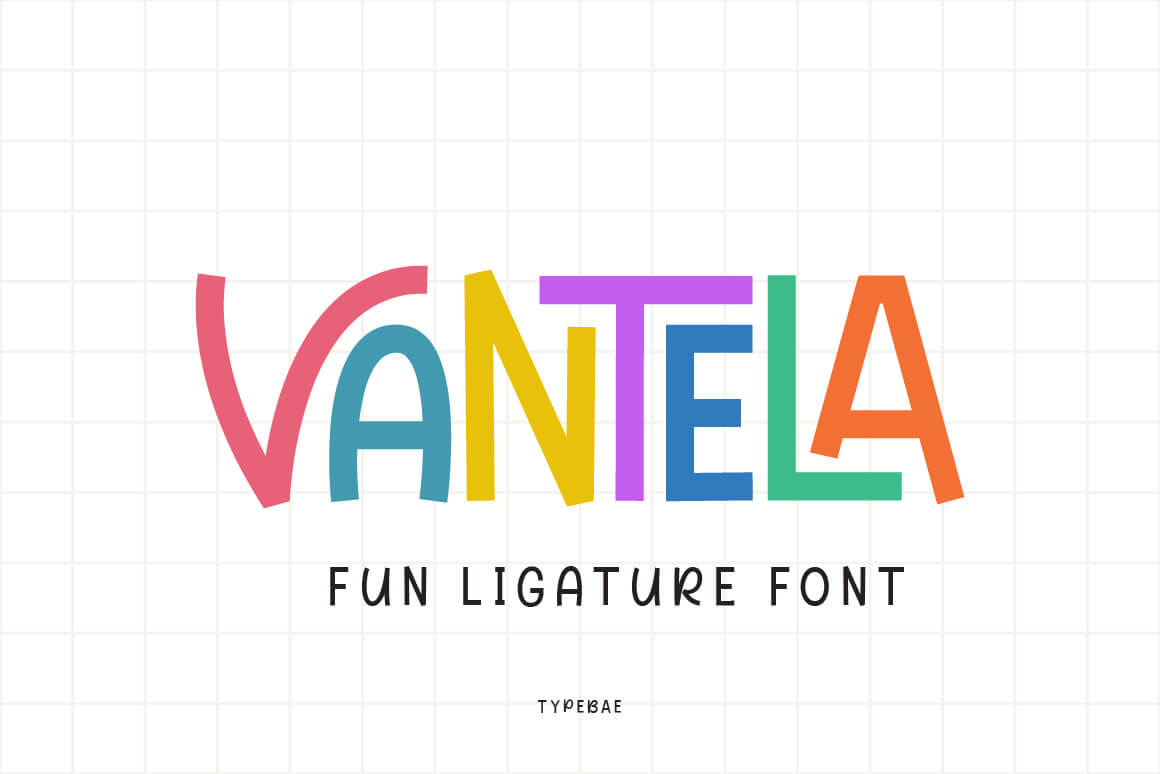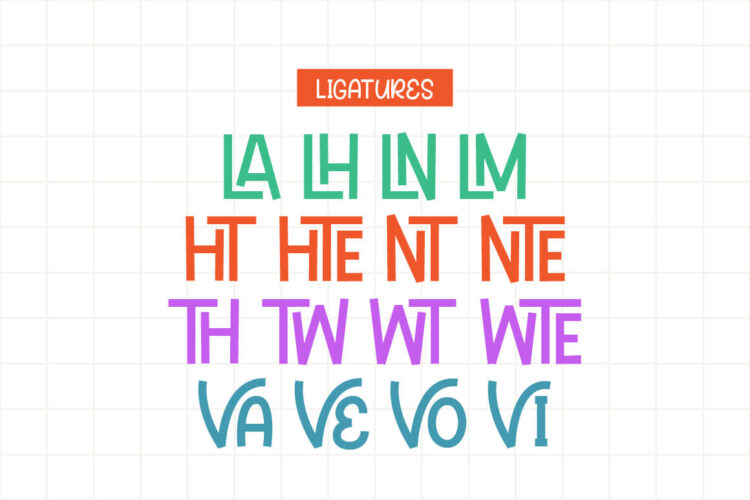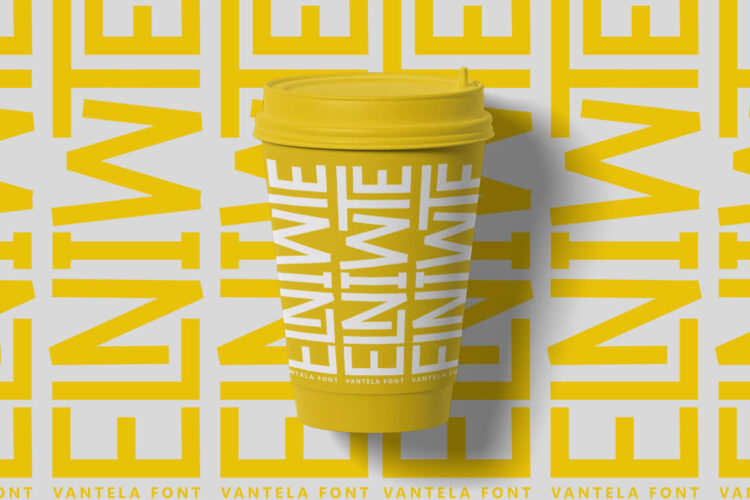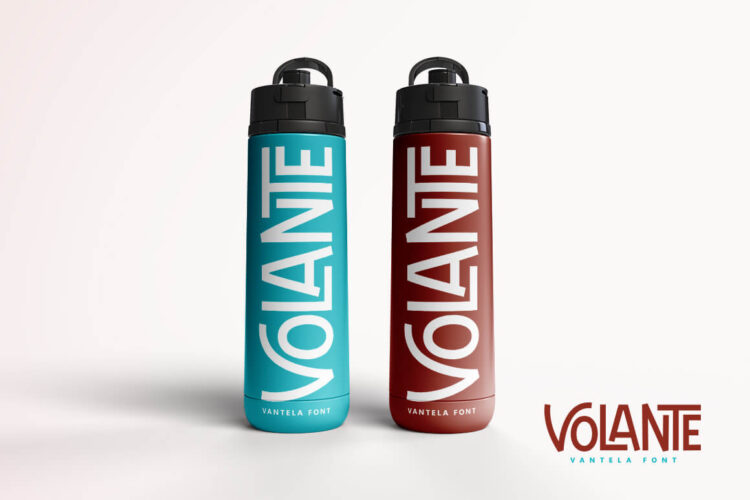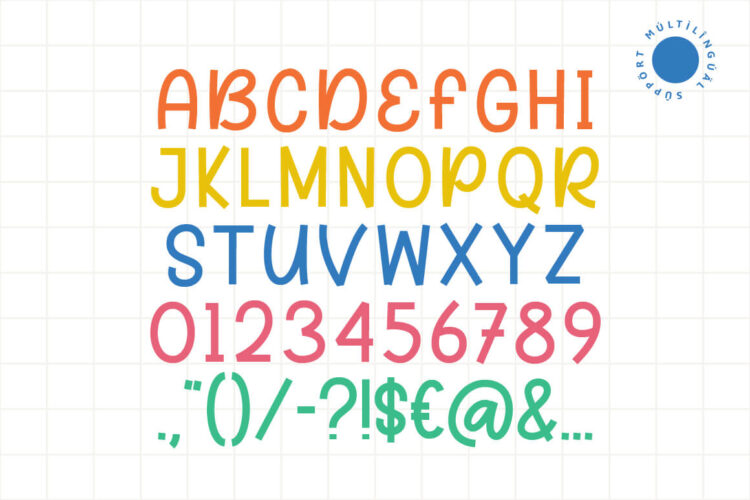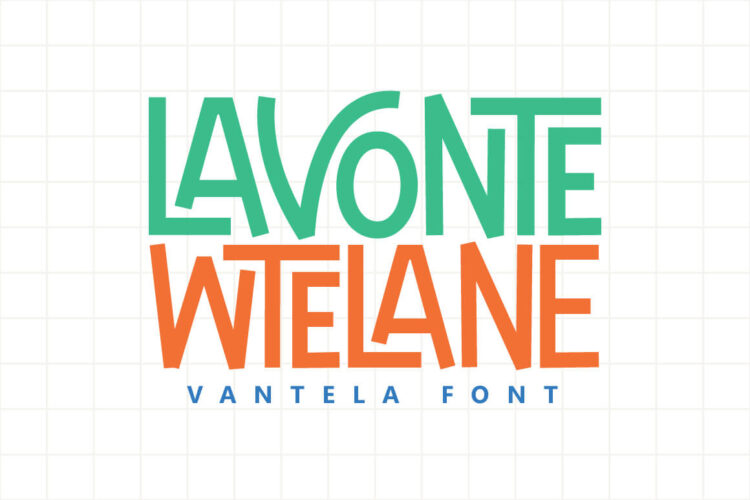
Fun Ligature Font
Vantela
Vantela is a very unique and fun display font, complete with playful ligatures. Whether you use it for cartoon-related designs, children’s games, or any creation that needs a beautiful touch, this font will be an excellent choice.
• Uppercase, Lowercase, Numeral & Punctuation
• 16 Ligatures
• PUA Encoded & Multilingual